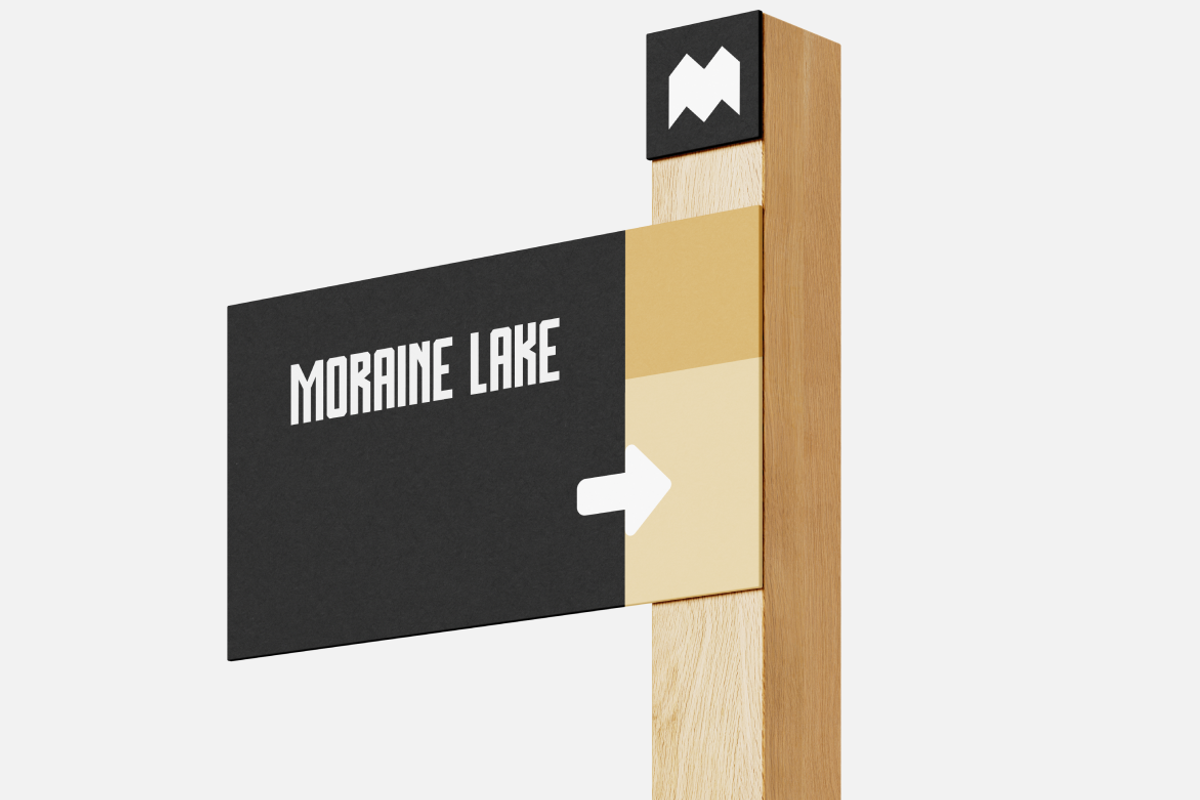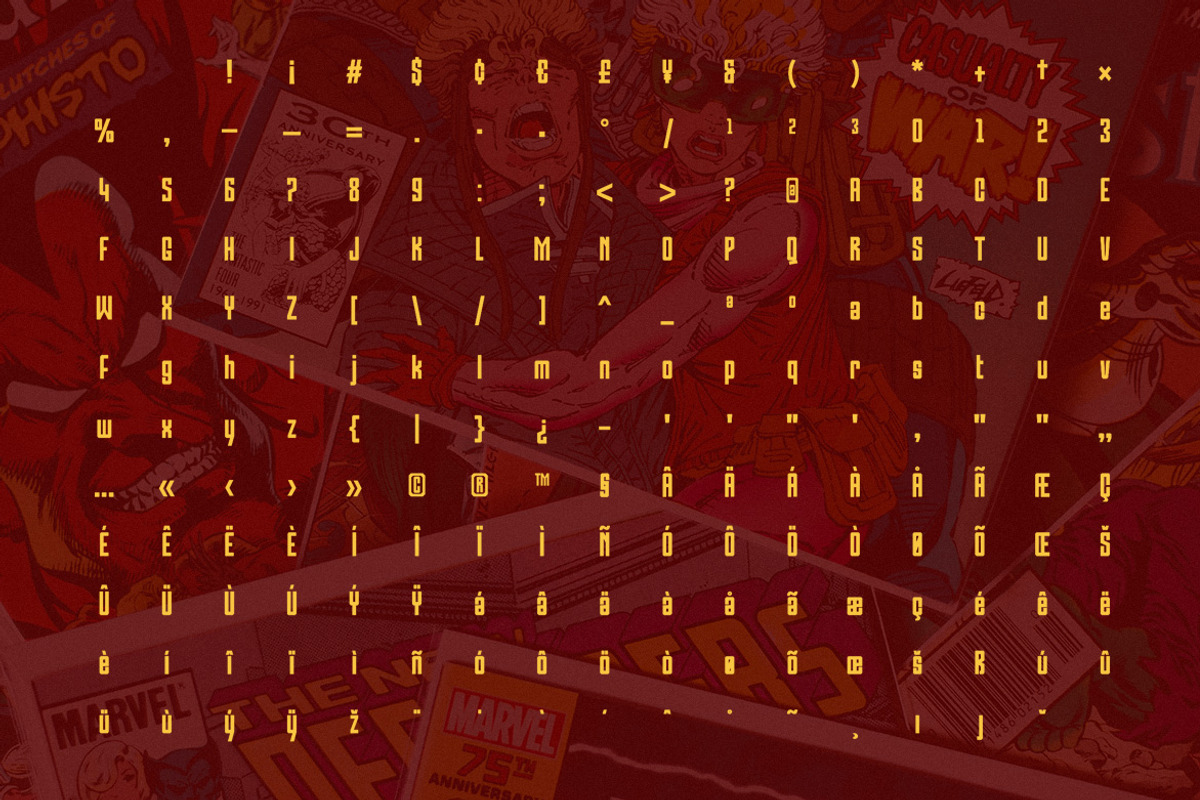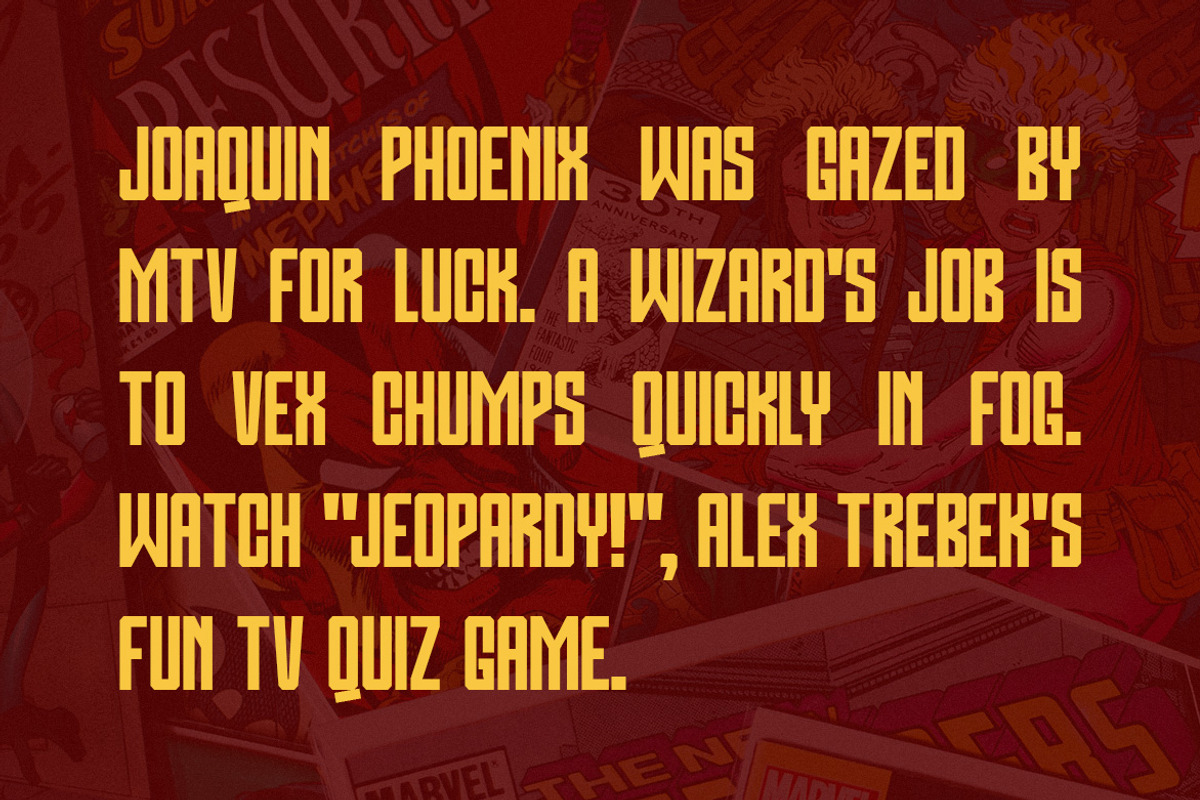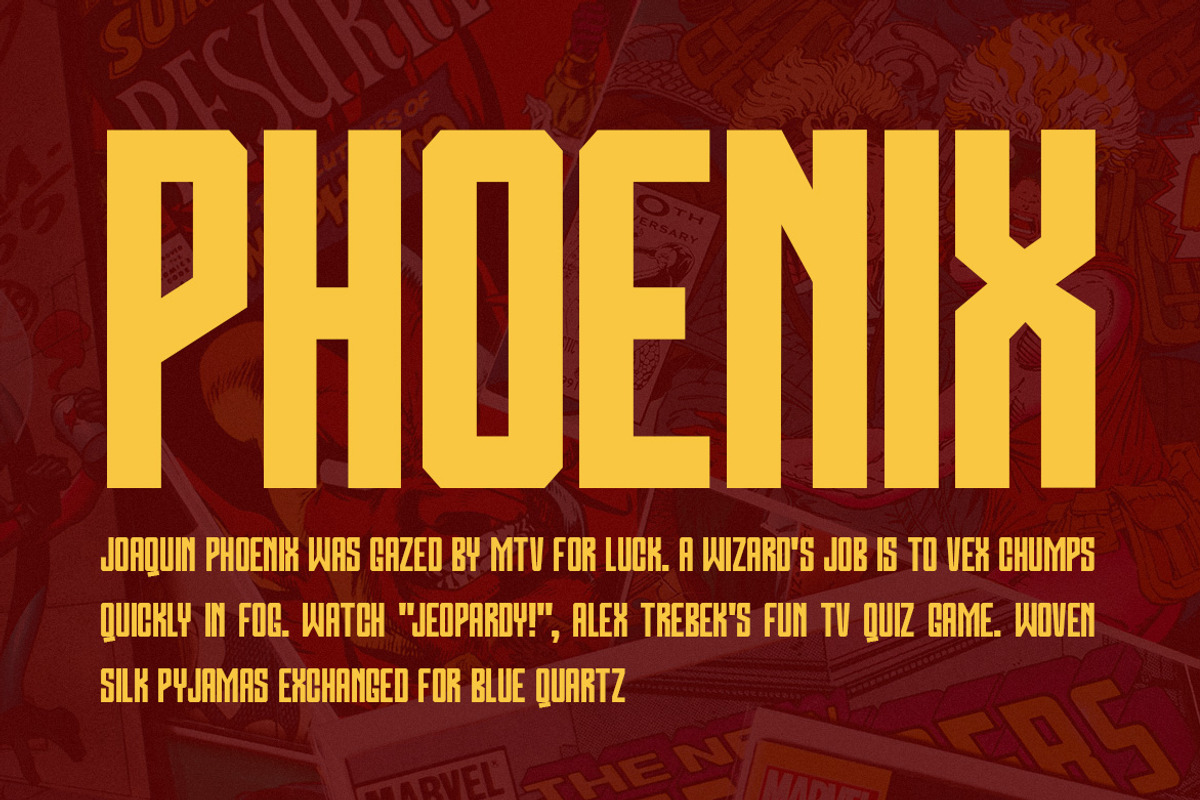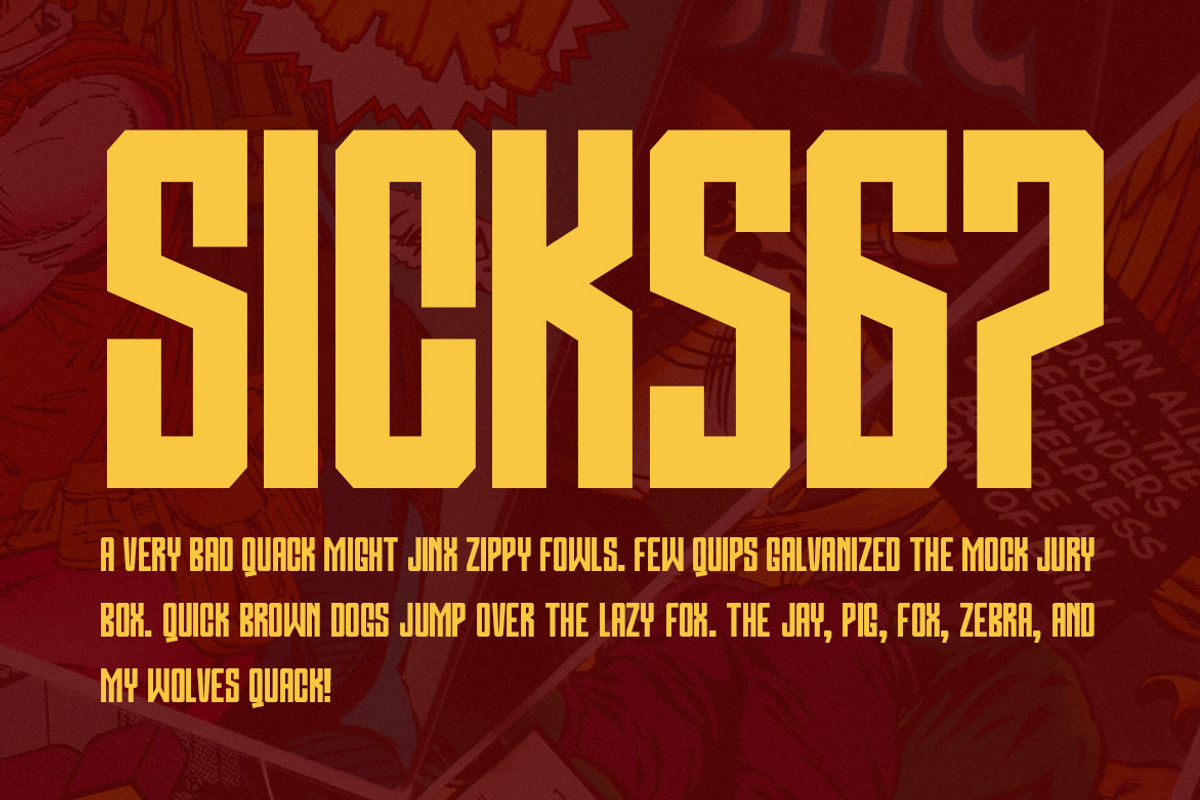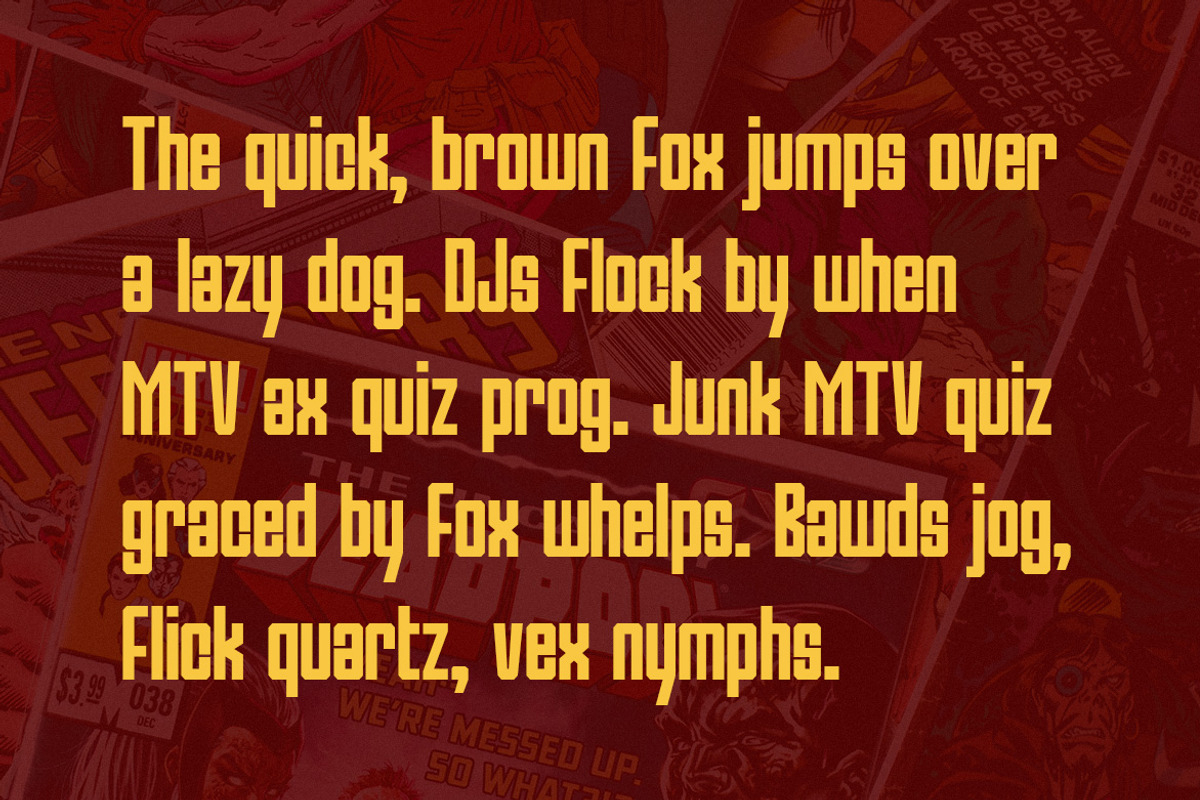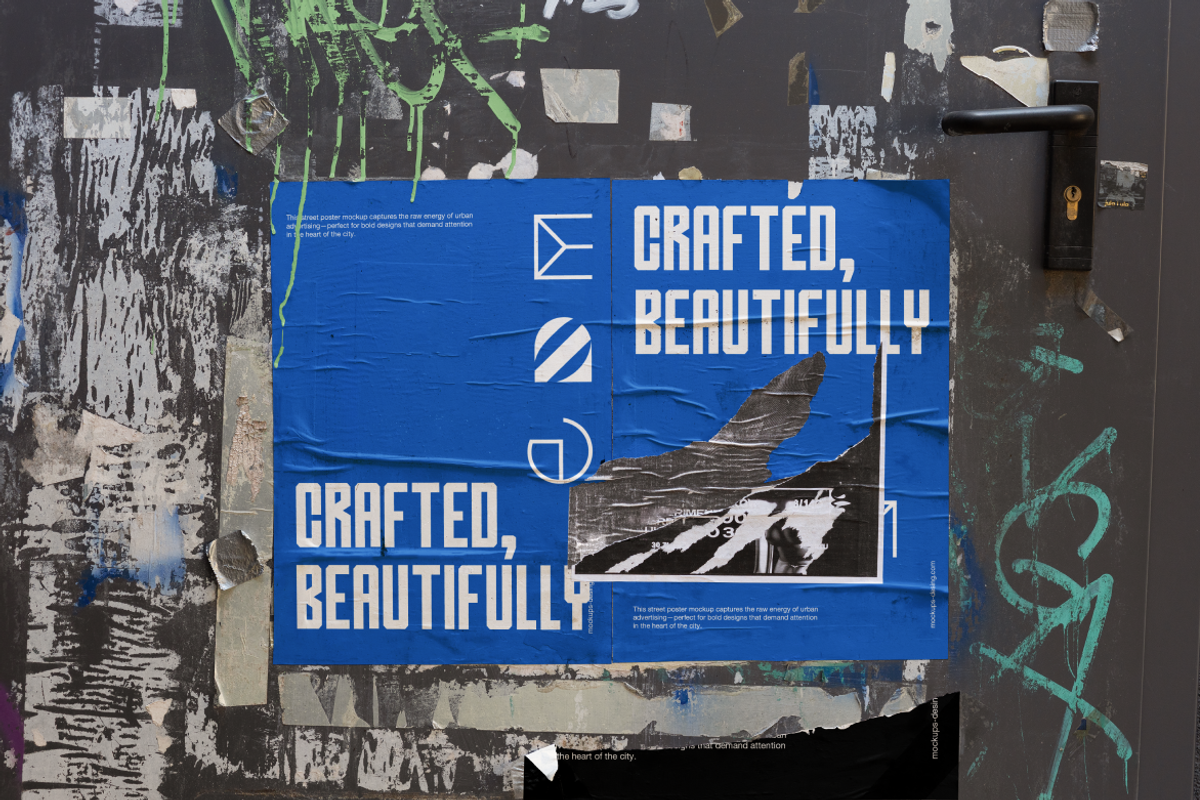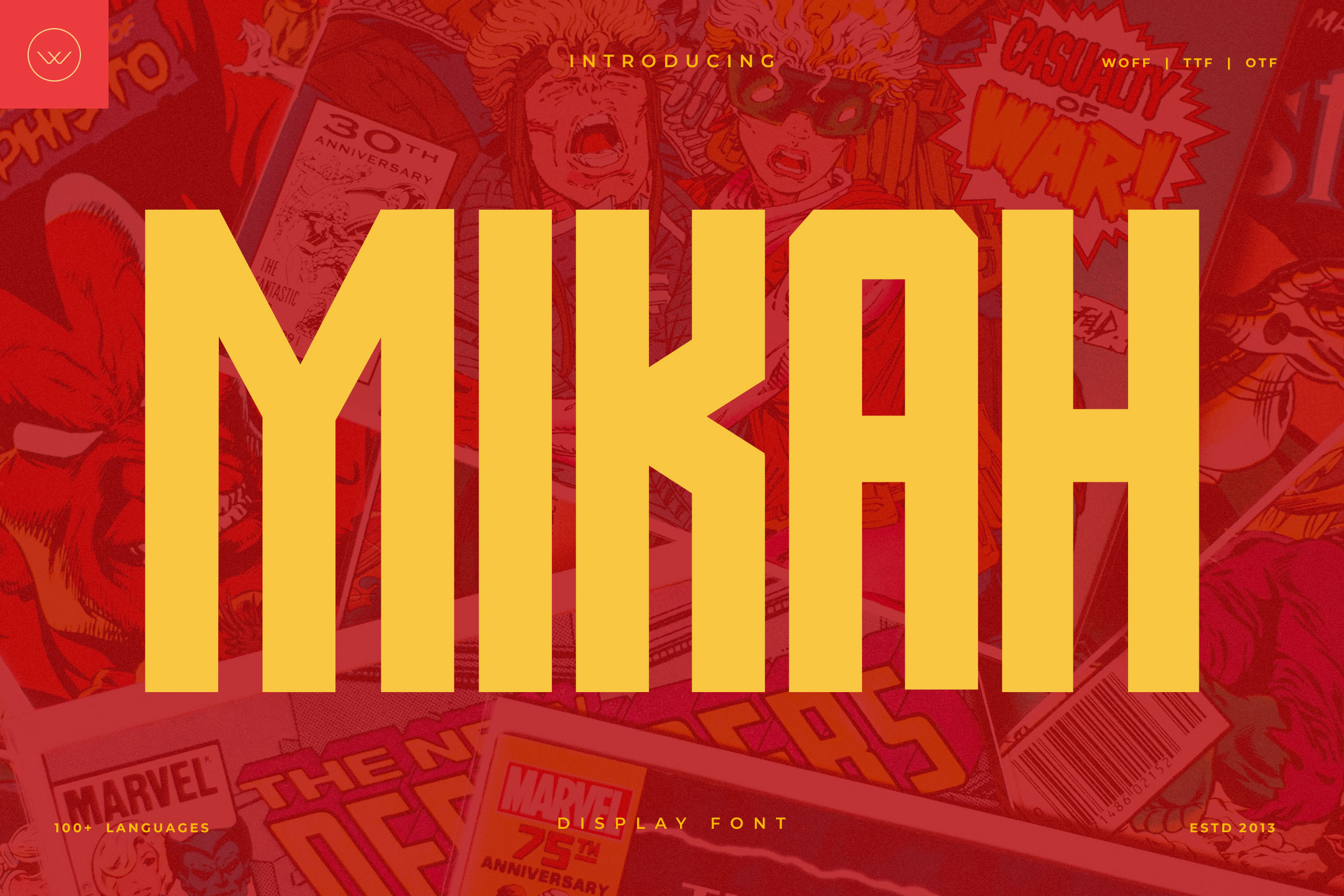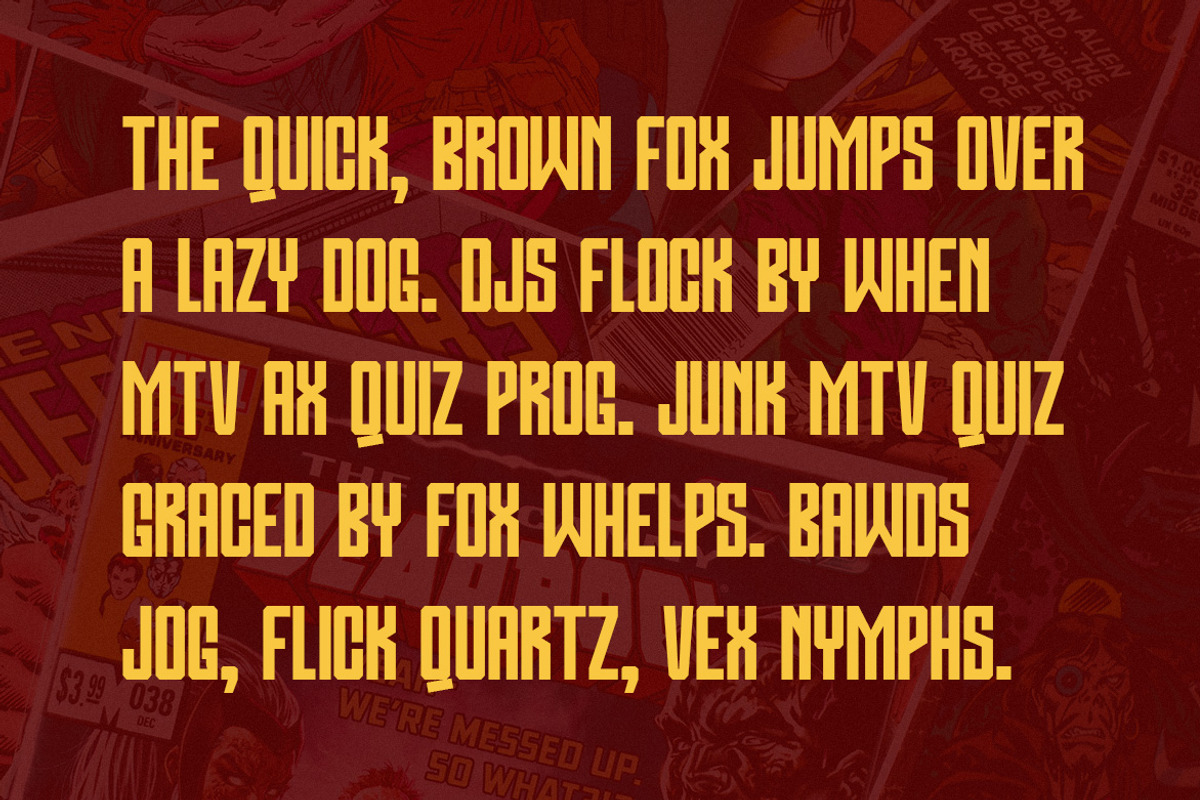
Mikah - Modern and Evergreen font
Mikah - Modern and Evergreen Typeface
Mikah Display Font Display is your ultimate choice when boldness and futuristic flair are essential. Designed with cosmic inspiration and modern geometry, Phoenix Display Font Display blends clean cuts, perfect circles, and stellar details to create a mesmerizing visual style. Whether you need sleek cult or rugged modern charm,this font family ensures every design project has its perfect match.
Beyond just aesthetics, Mikah Display Font Display was engineered for functionality and adaptability. Whether you’re creating standout headlines or immersive visual experiences, this typeface family ensures your message bursts through with cosmic brilliance. Experience how geometry, creativity, and boldness collide in one breathtaking package designed for the future.
- Uppercase letters
- Lowercase letters
- Punctuations